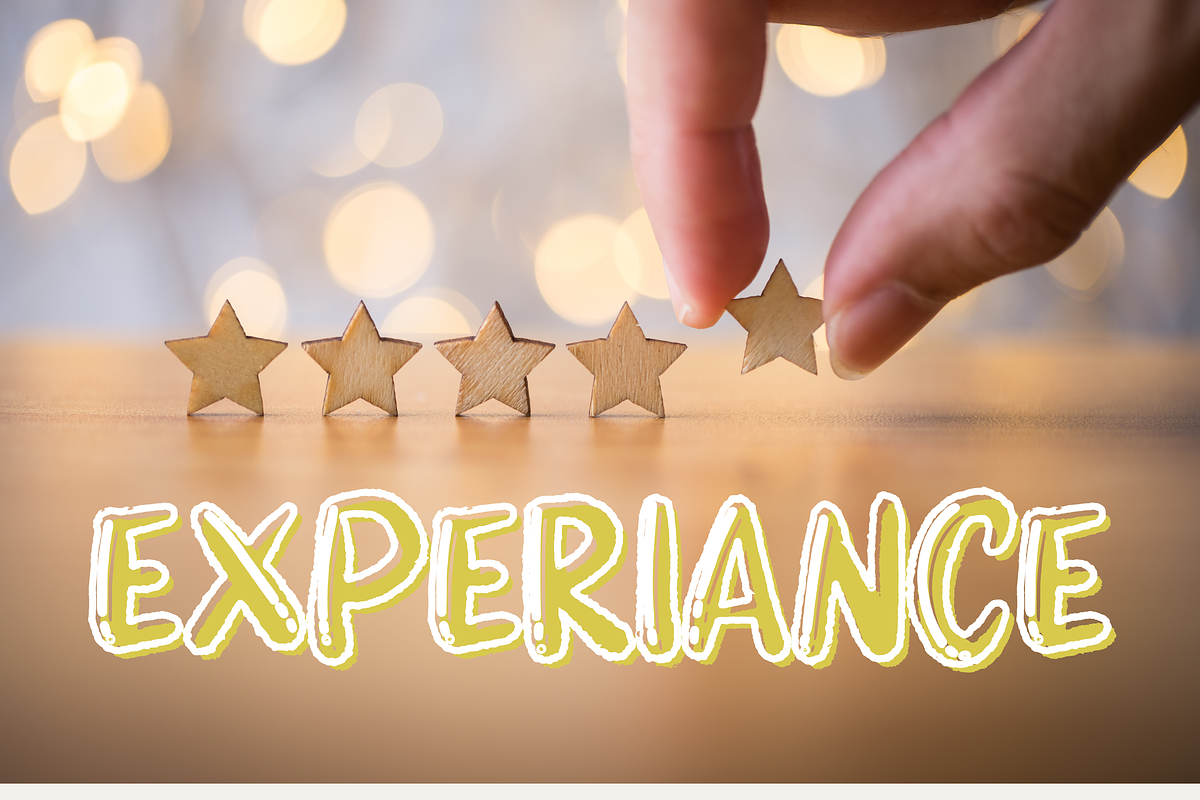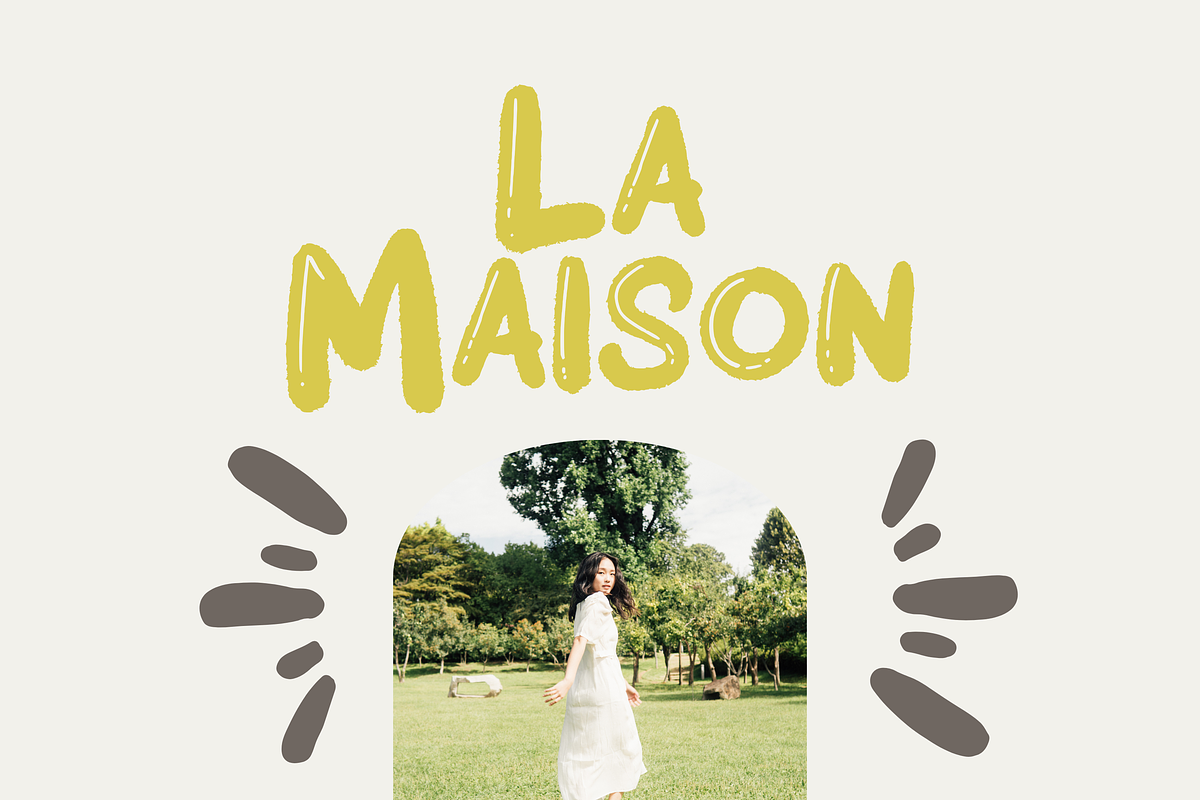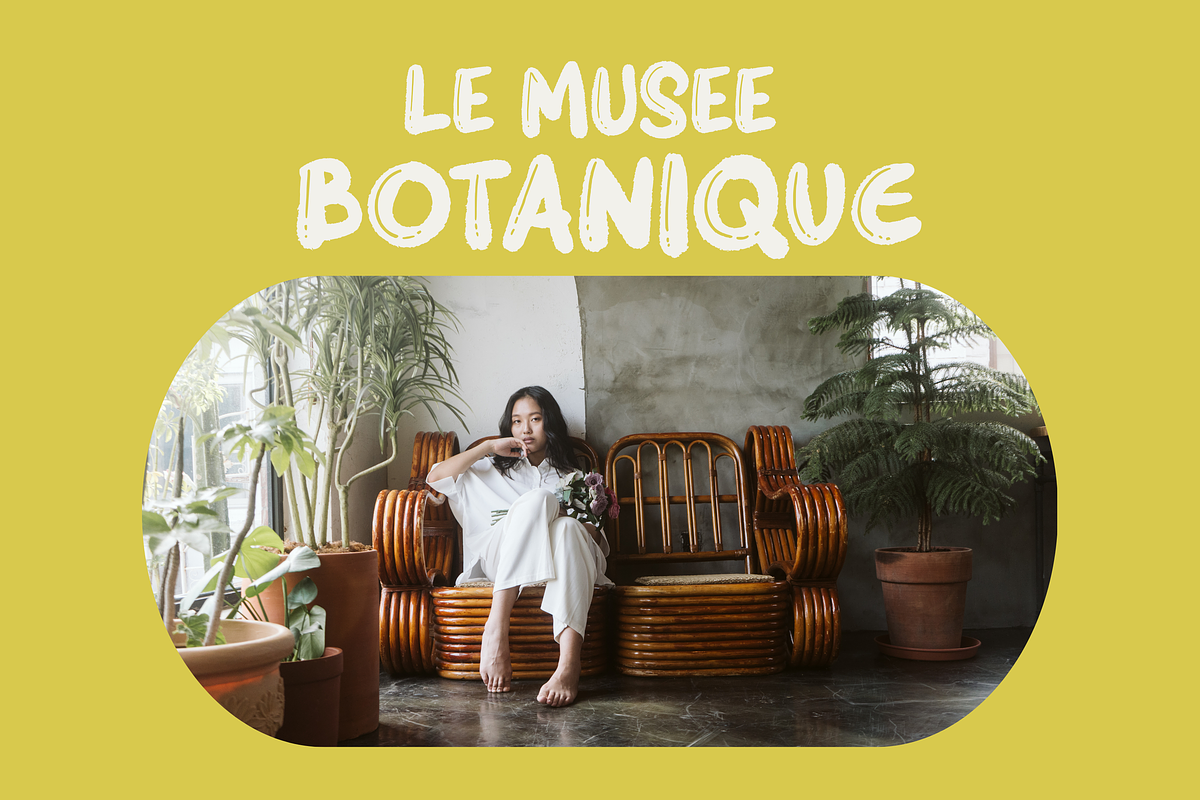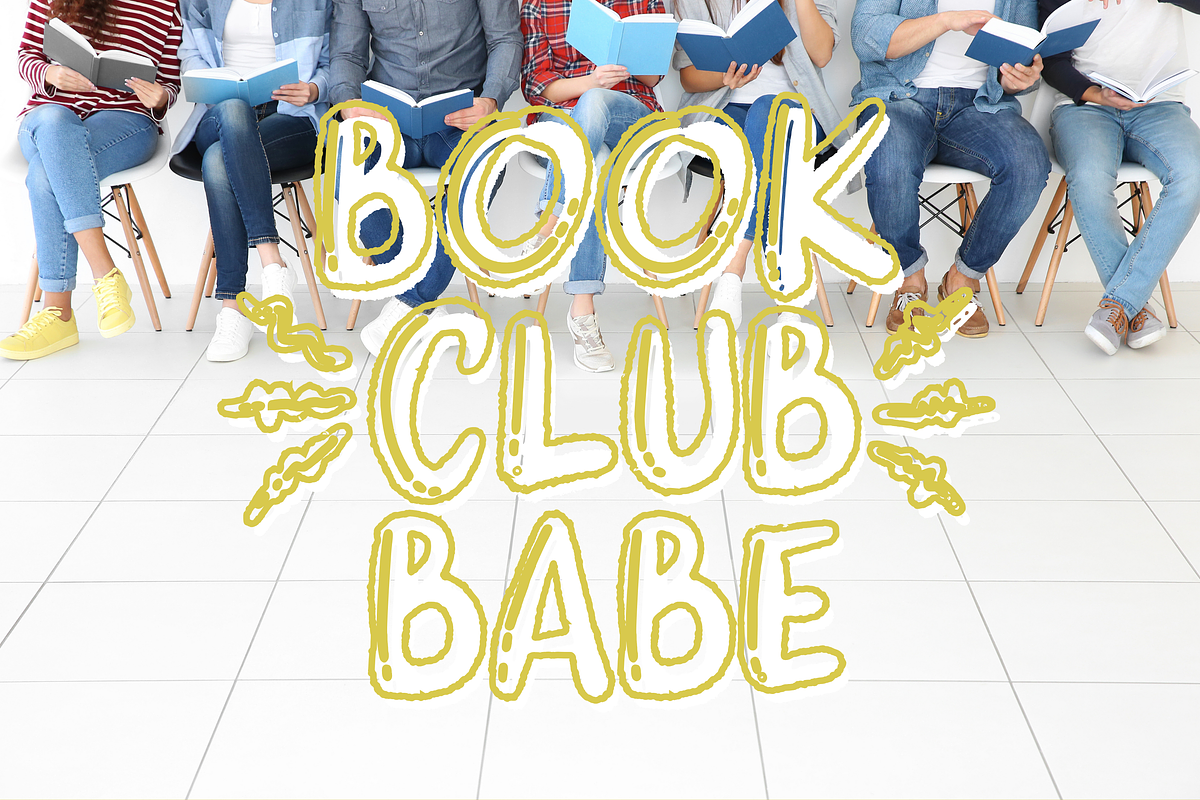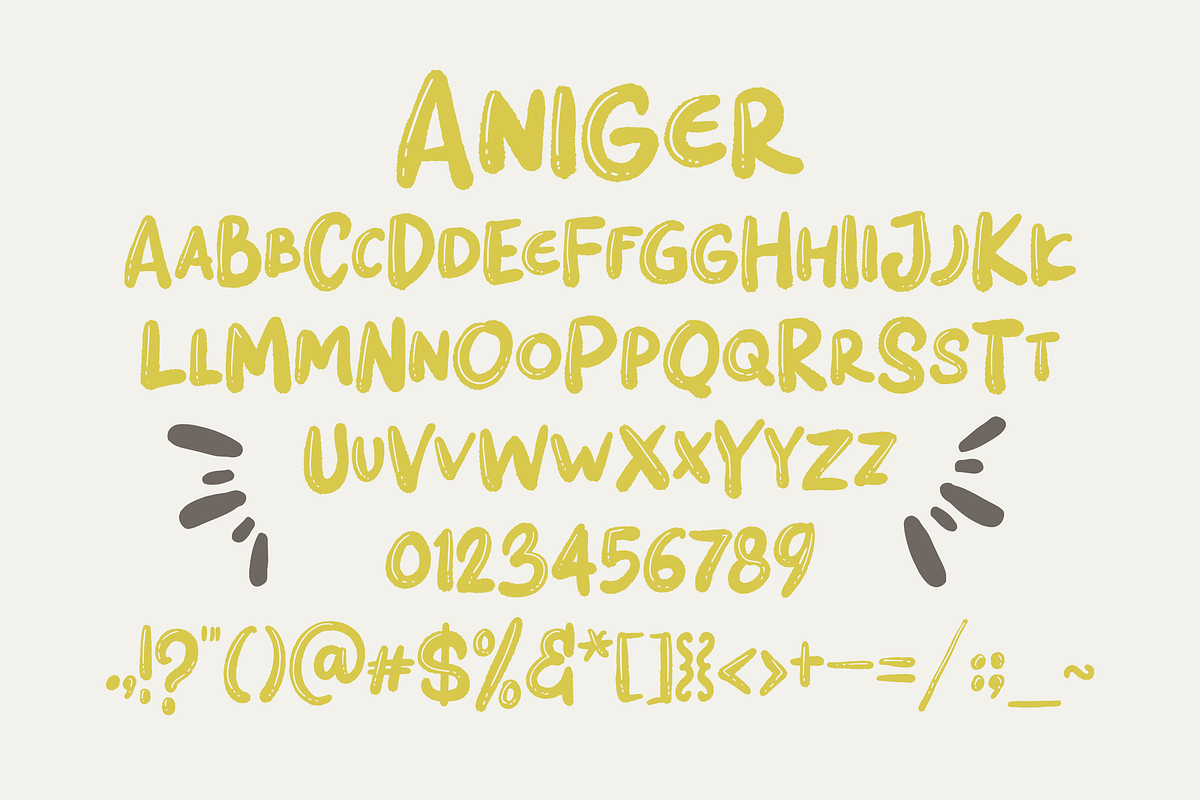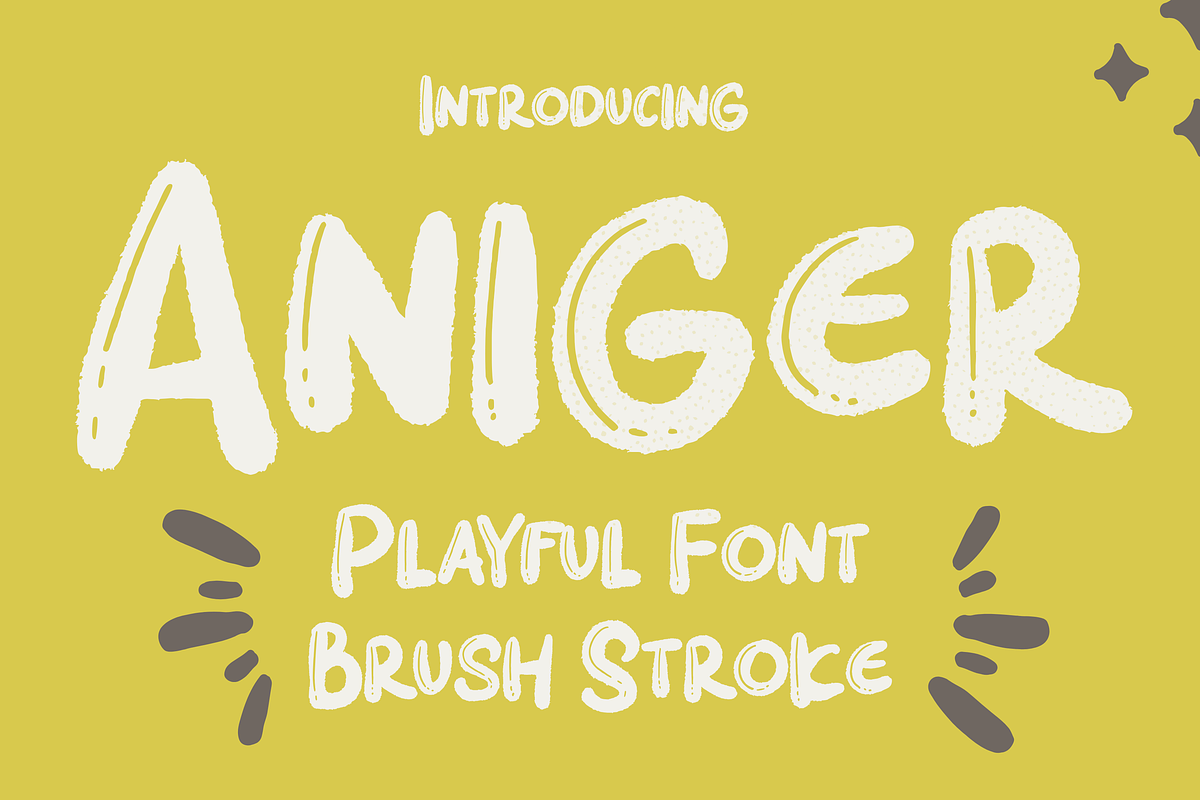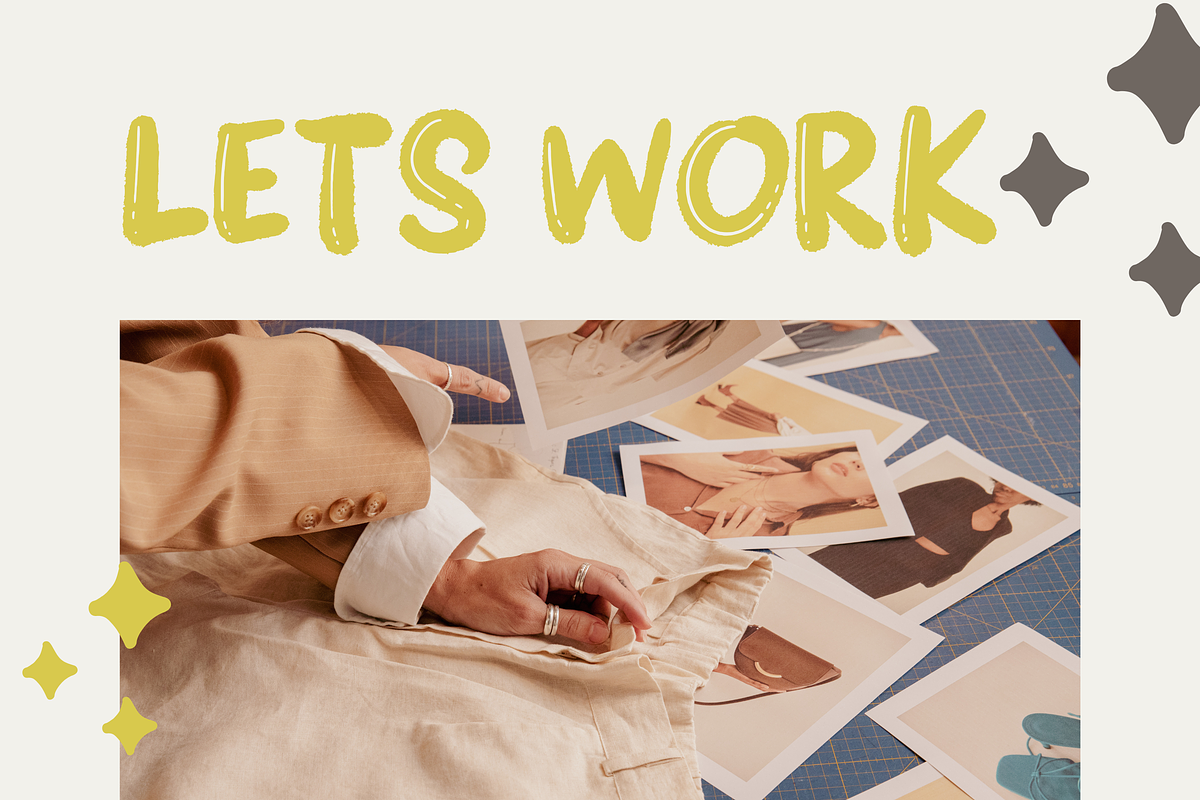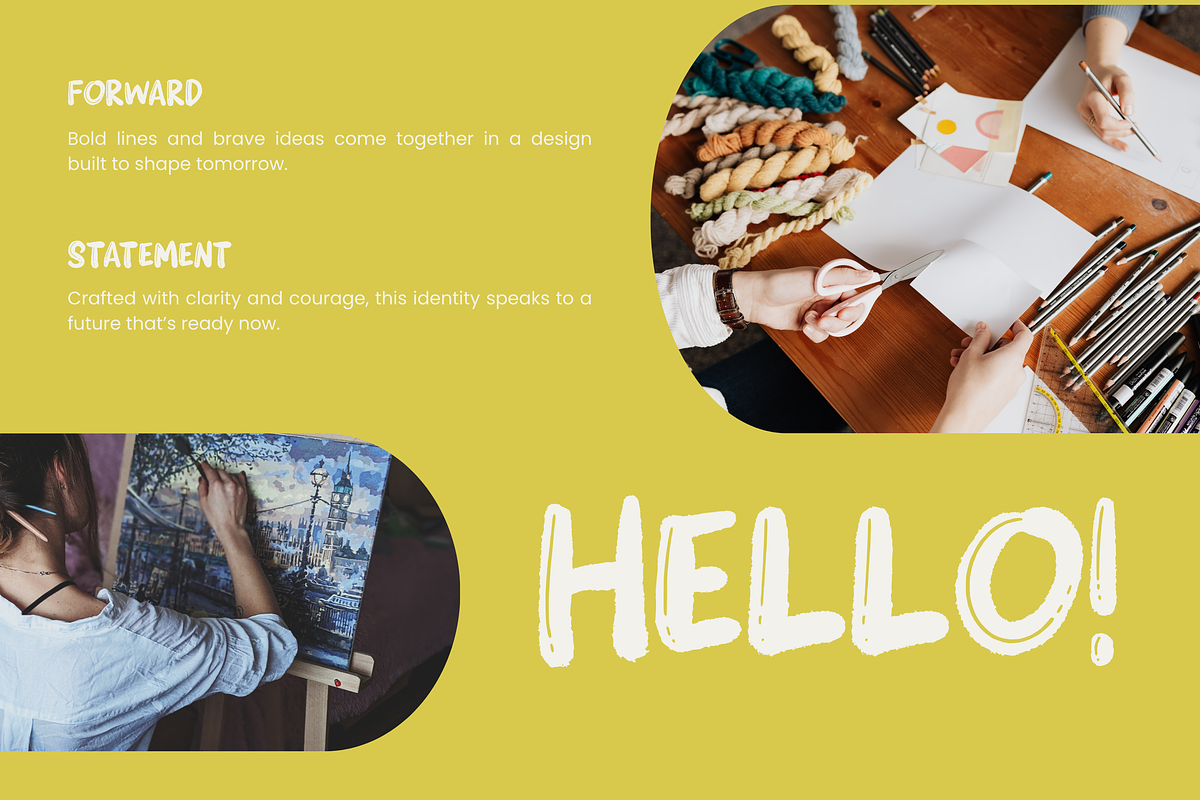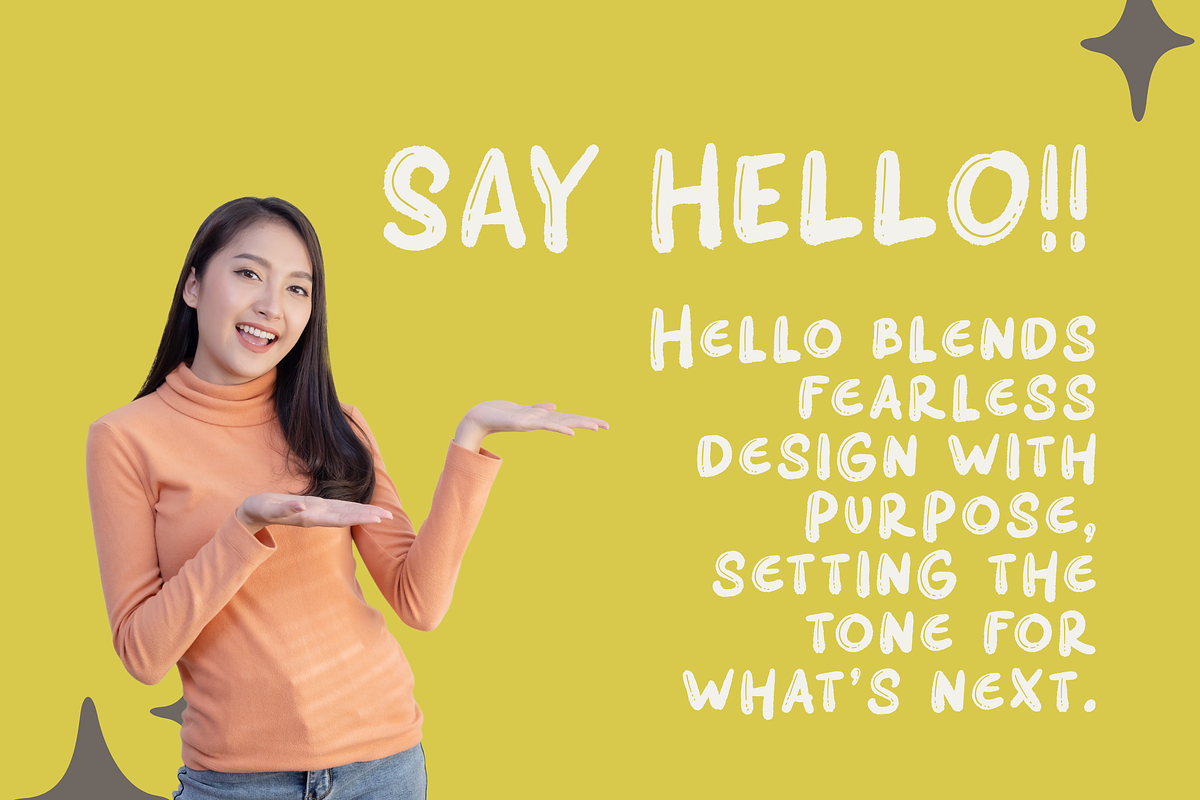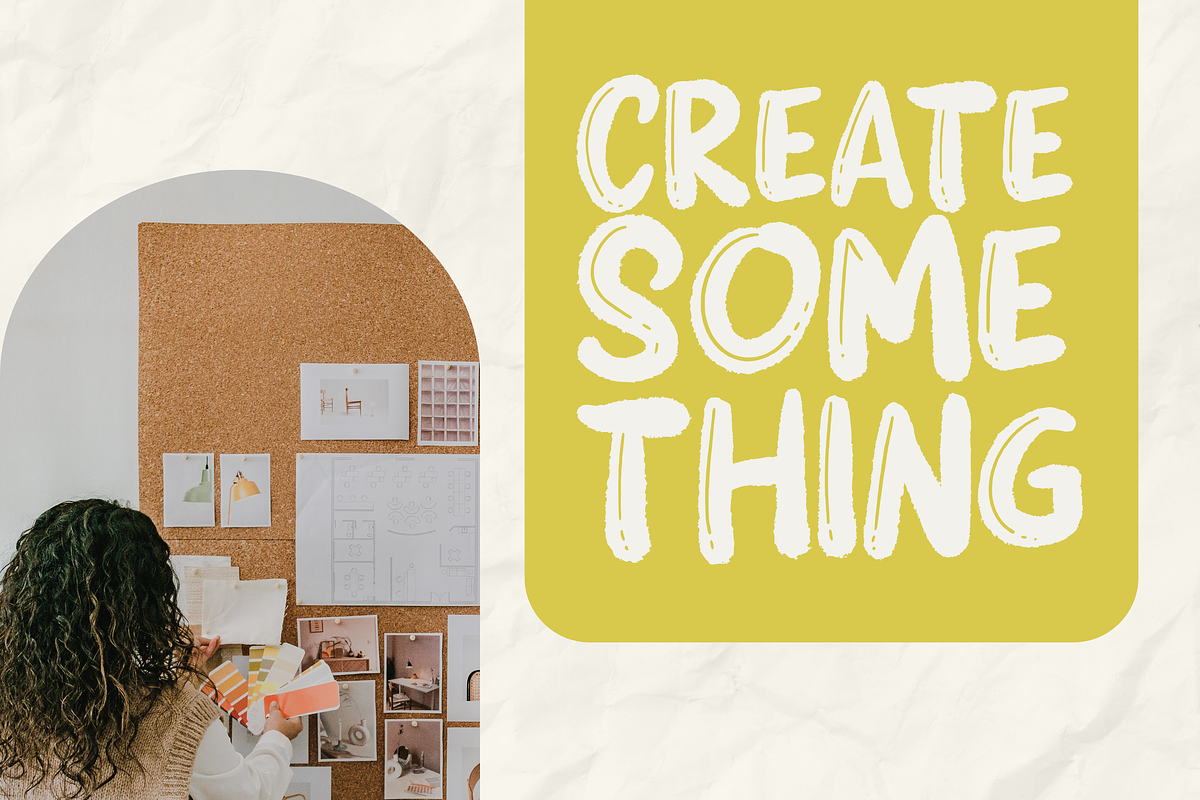
Aniger
Aniger – Playful Brush Stroke Font
Aniger is a playful brush font perfect for modern, trendy designs. Whether you're working on social media content, fun branding, product packaging, apparel, or event posters — this font adds an energetic and handcrafted feel to your layout.
With expressive brush strokes and a casual vibe, Aniger makes your design stand out while keeping things fresh and stylish.